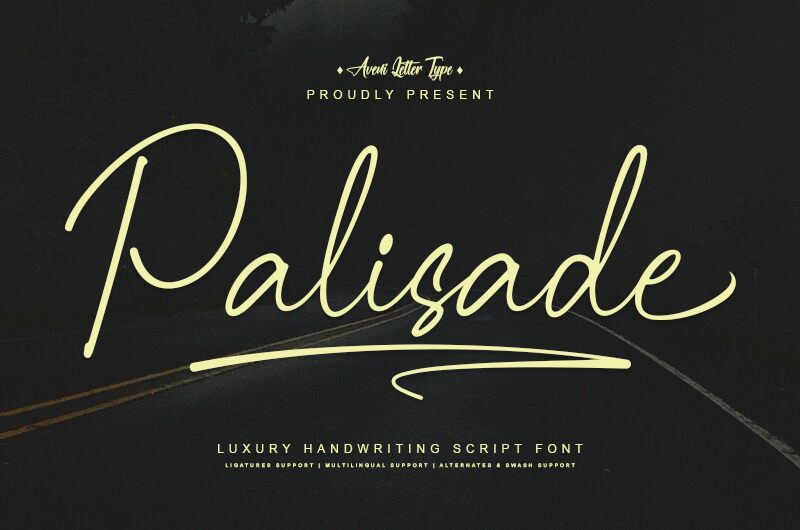
Palisade
Palisade font designed by Aveni Letter Type is an elegant handwritten font with a light weight and graceful, flowing style. This classic-modern script carries a sophisticated ambiance due to the delicate movements featured in each letterform.
Apply this free handwritten font in invitation cards, business card designs, advertising, logotype creation, headlines, branding projects, posters. Social media designs will also benefit from its eye-catching nature and sleek appearance.